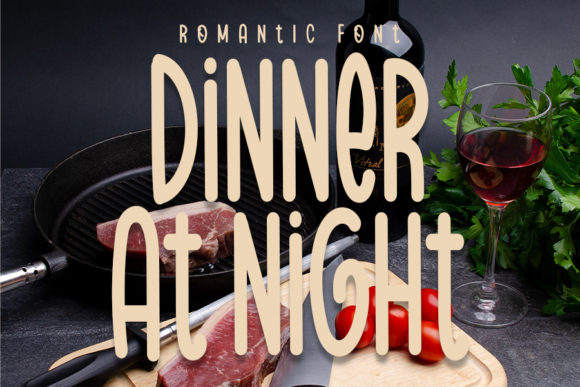
Dive into the world of visual charisma with Dinner at Night Font, a display font family crafted with both elegance and versatility in mind. Its smooth strokes, reminiscent of a gentle paintbrush, create an organic and clean aesthetic that will elevate your designs to new heights.
With Dinner at Night Font, you hold the key to unlocking a world of creative possibilities. Its effortless charm is perfect for branding projects, adding a touch of sophistication to logos, business cards, and marketing materials. Its ability to blend into any design concept seamlessly makes it a versatile choice for web design, social media posts, and eye-catching headlines that demand attention.
Step into the spotlight with Dinner at Night Font, and let your designs shine brighter than ever before. Its timeless style ensures that your creations will stand the test of time, remaining relevant and captivating in the ever-changing digital landscape.
Embrace the magic of Dinner at Night Font and transform your designs into masterpieces that speak volumes. Its user-friendly nature makes it accessible to both seasoned designers and those just starting their creative journey. With Dinner at Night Font, the possibilities are endless, and the only limit is your imagination.